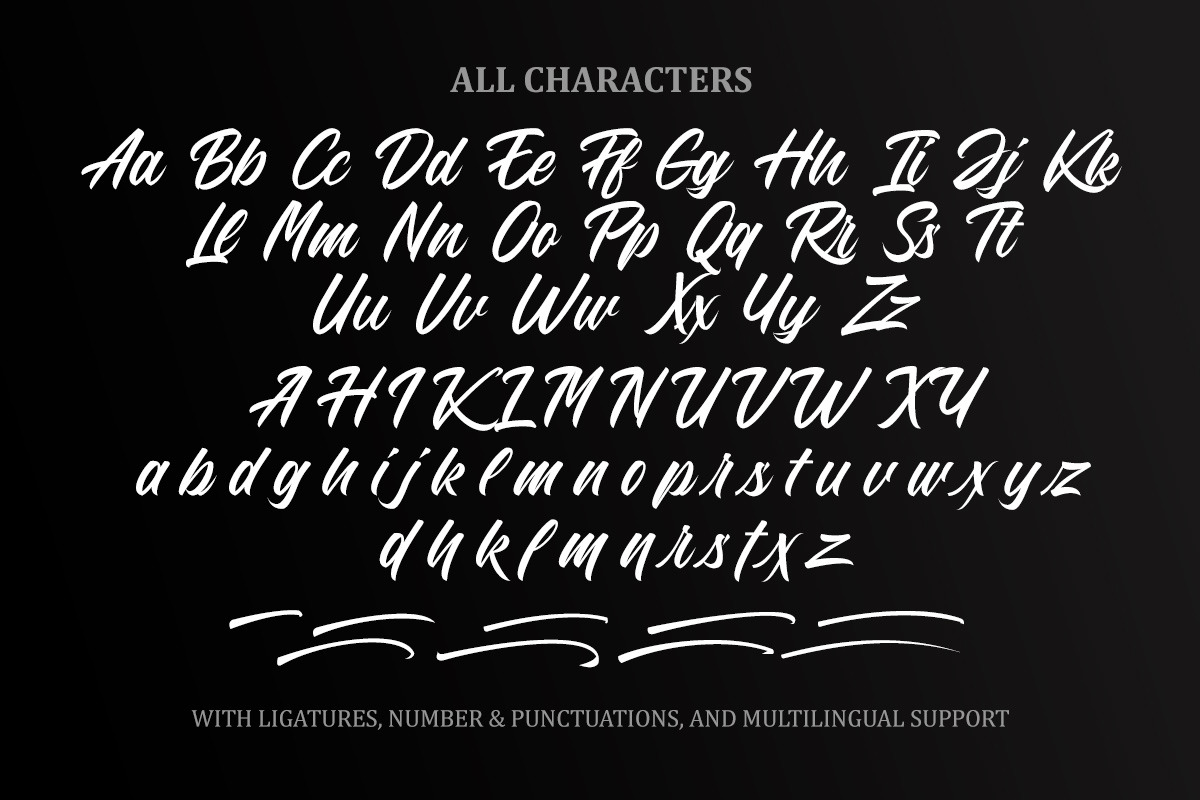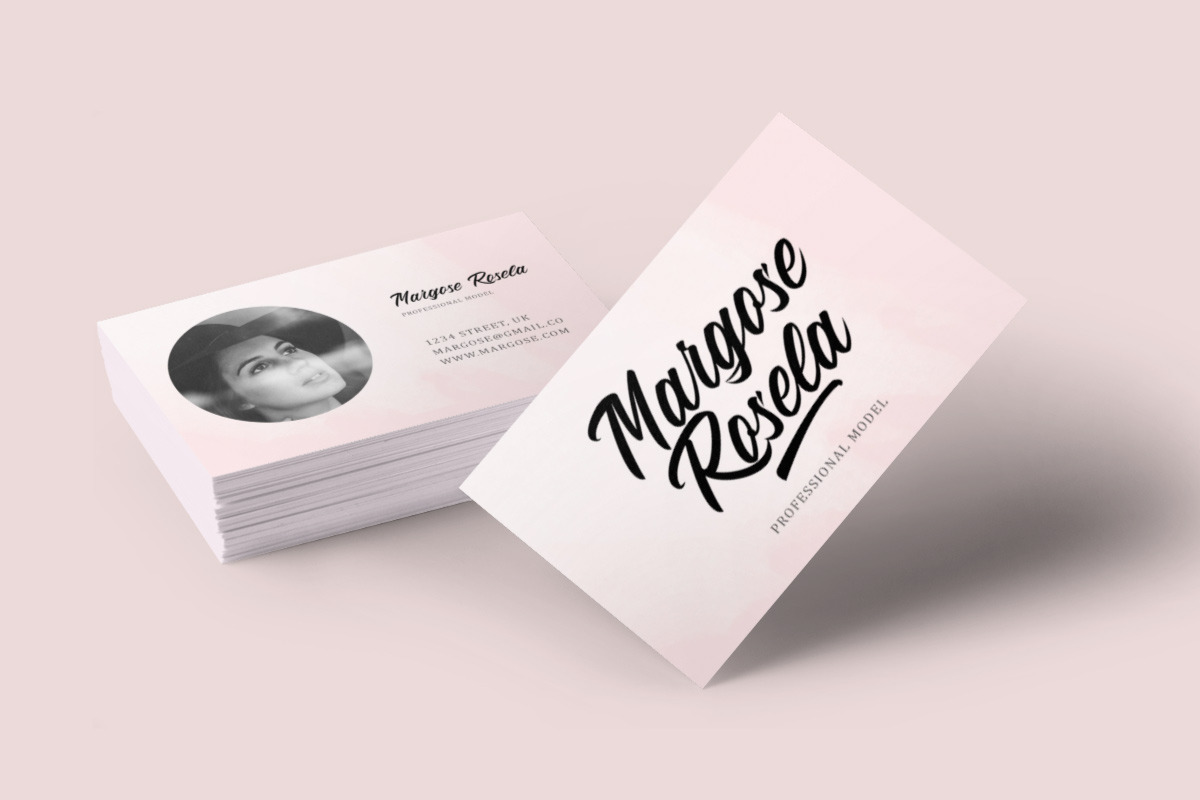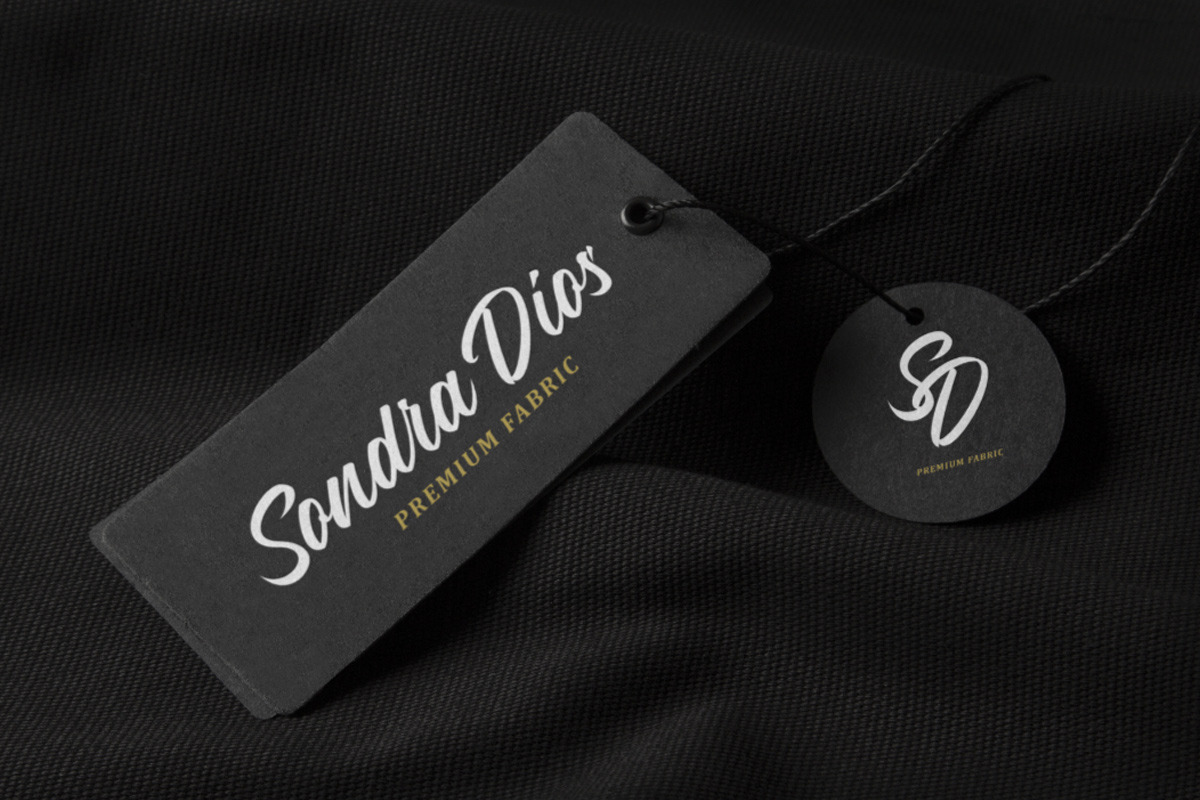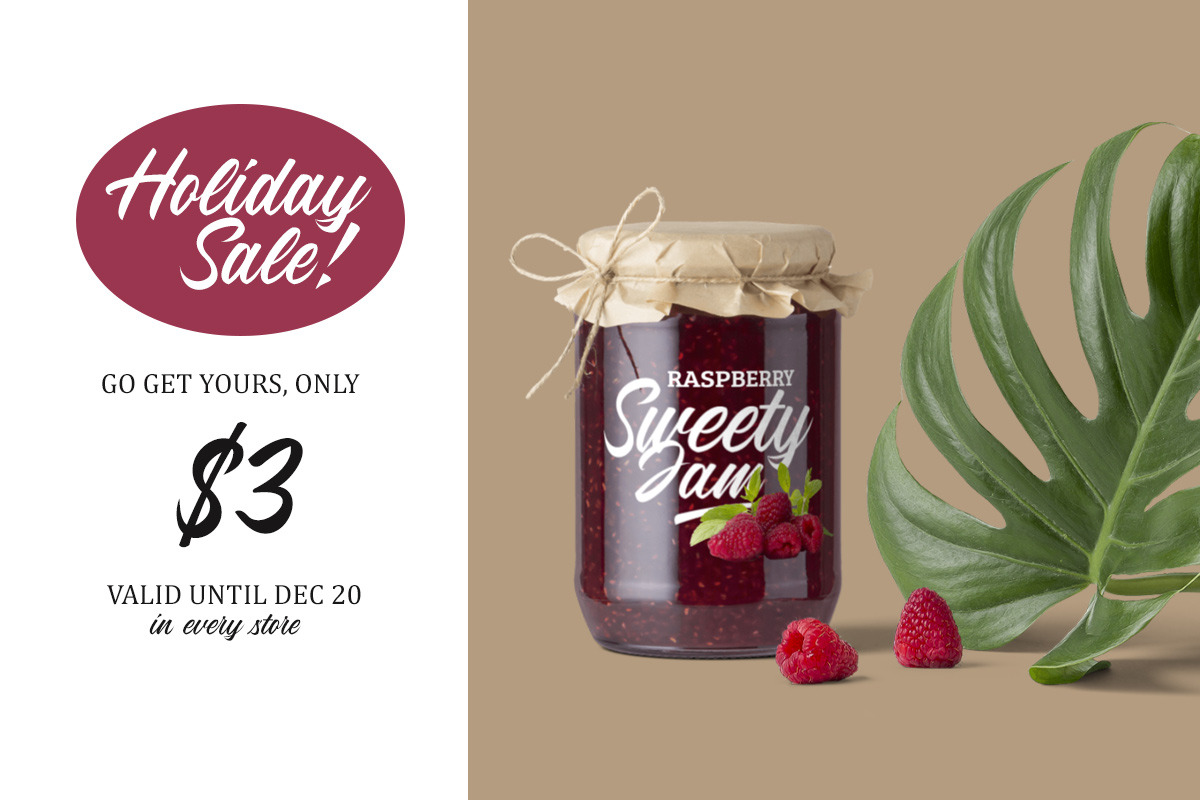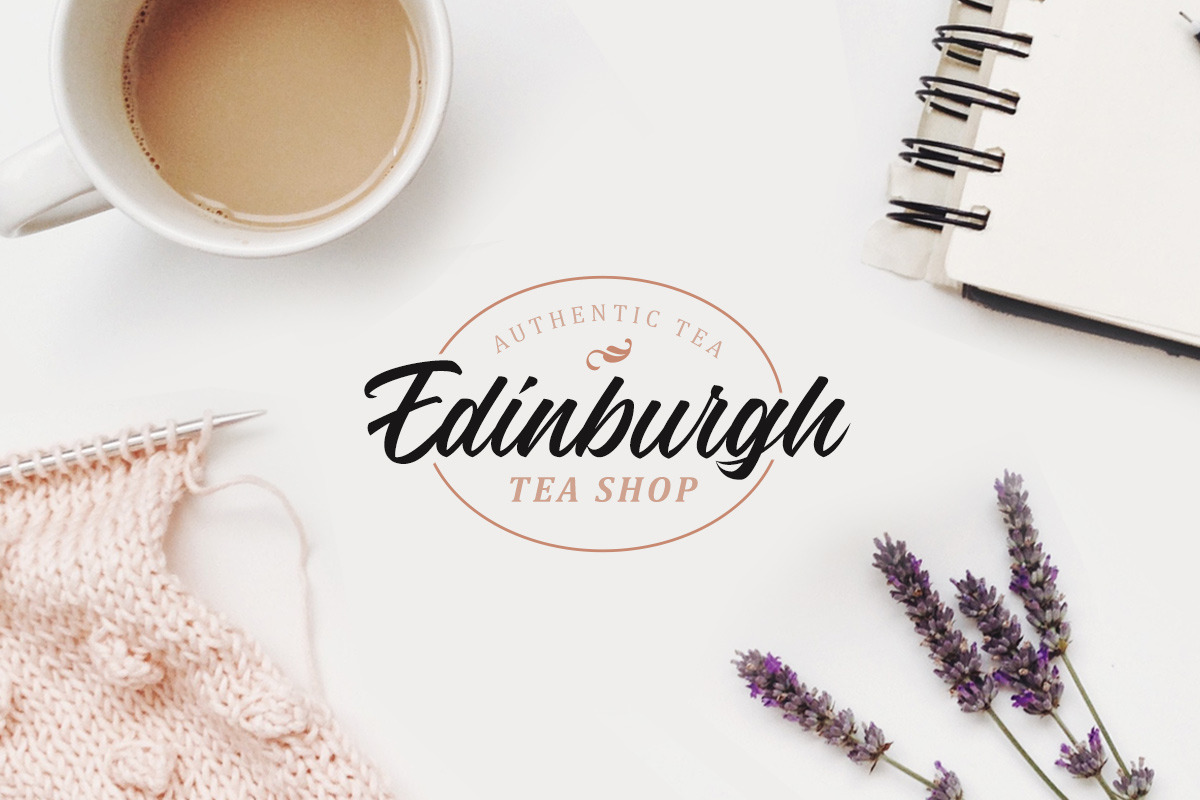
The Brosello Script
Introducing, The Brosello Script
The Brosello Script is a natural handwritten made script which is suitable for you who needs a typeface for headline, logotype, apparel, invitation, branding, packaging, advertising etc. This typeface is comes in uppercase, lowercase, punctuations, symbols & numerals, stylistic set alternate, ligatures, etc also support multilingual and already PUA encoded.
Foreign Languages Support: ÀÁÂÃÄÅÇÈÉÊËÌÍÎÏÐÑÒÓÔÕÖØÙÚÛÜÝßàáâãäåæçèéêëìíîïðñòóôõöøùúûüýÿ